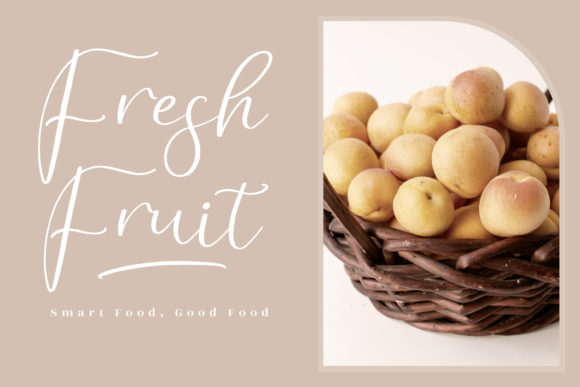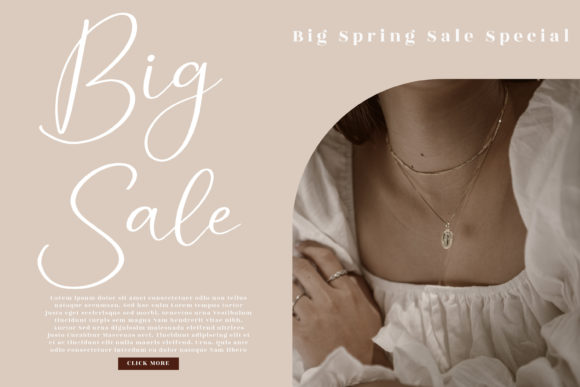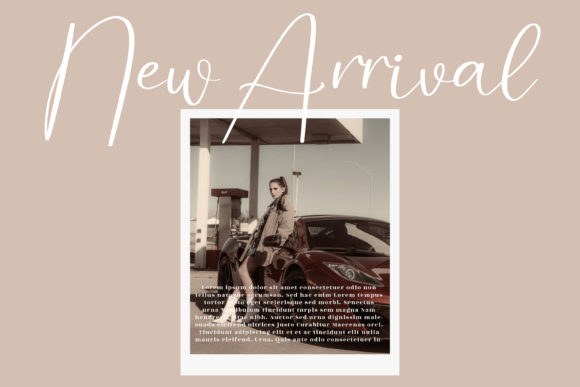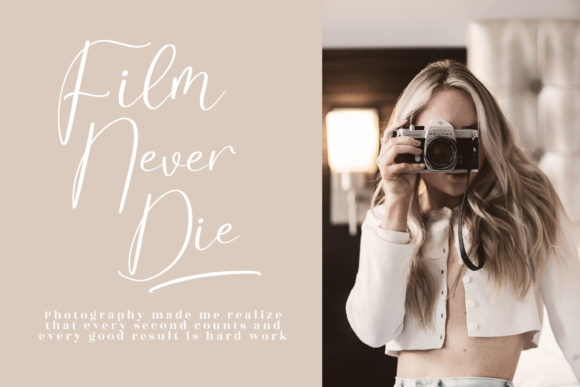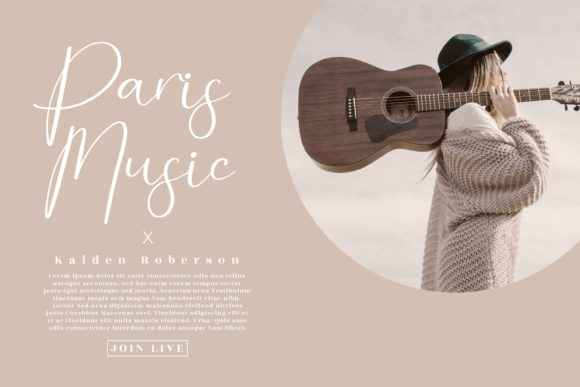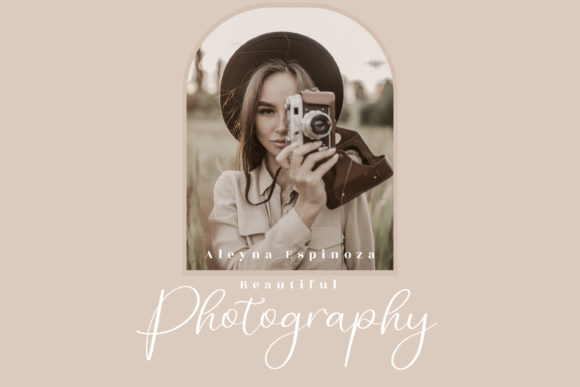
Introduction to Jelystta Font
Jelystta is an outstanding calligraphy typeface with characters that dance along the baseline.
Jelystta Font offers exceptional quality and versatility, making it a valuable addition to your design toolkit. Whether you’re creating for personal projects or commercial use, Jelystta Font delivers professional results.